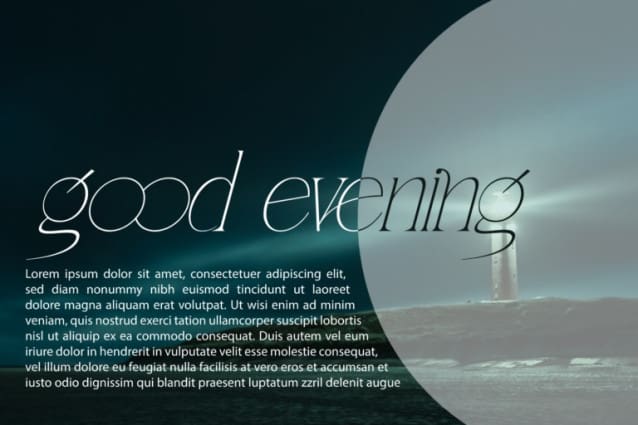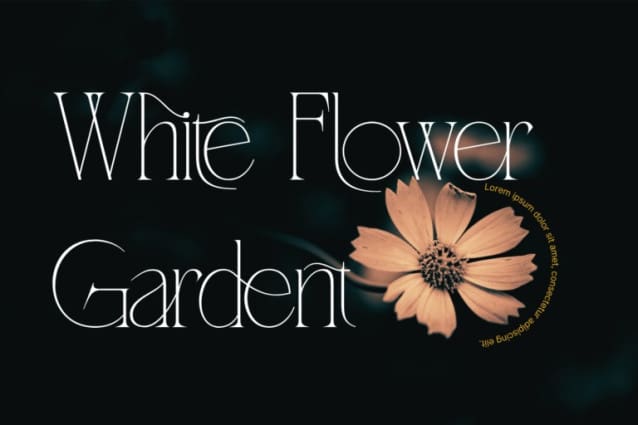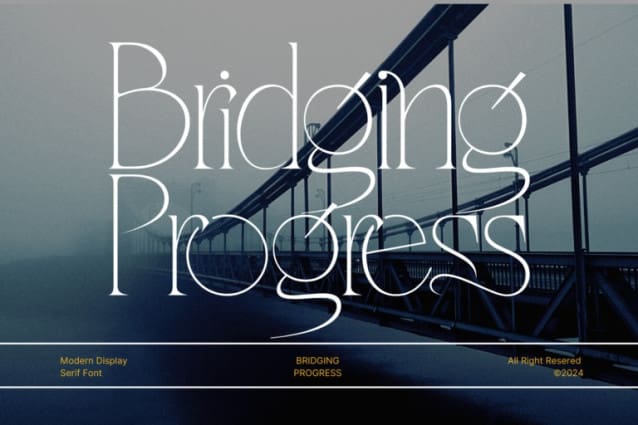
Bridging Progress Font
Bridging Progress Font is a modern, display typeface that pushes the boundaries of contemporary typography. It has an eccentric and expressive character, making it a unique choice for daring projects. The letterforms feature a dynamic blend of traditional and modern elements, creating a captivating and unified design. This font brings a luxurious and clean style to your projects such as websites, modern logos, branding identities, social media quotes, wedding stationery and various other needs!
Bridging Progress was built with OpenType features and includes 100 ligatures, alternate, numbers, punctuation, and it also supports other languages.